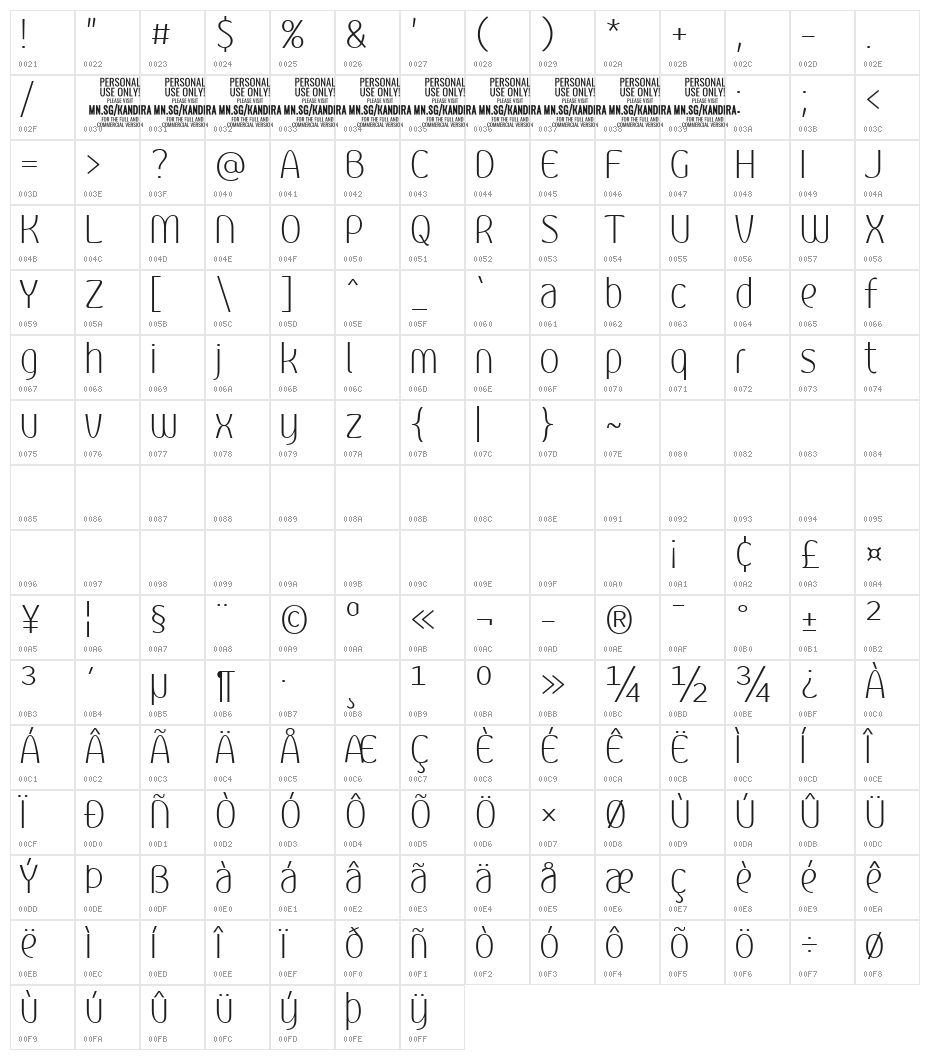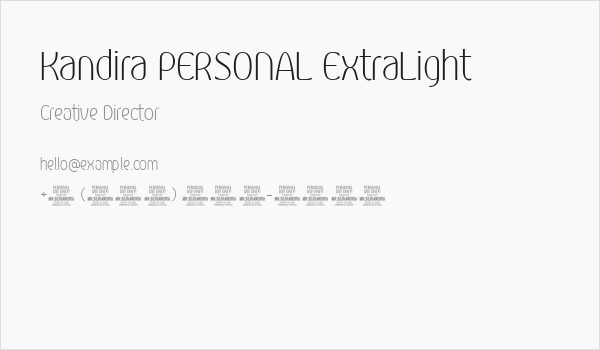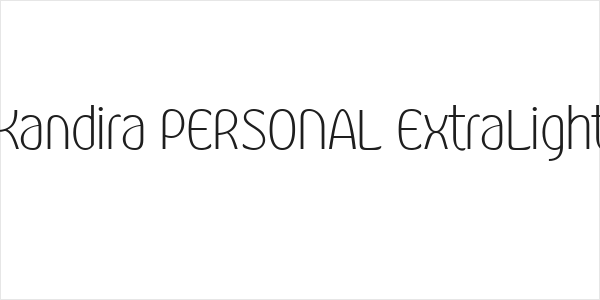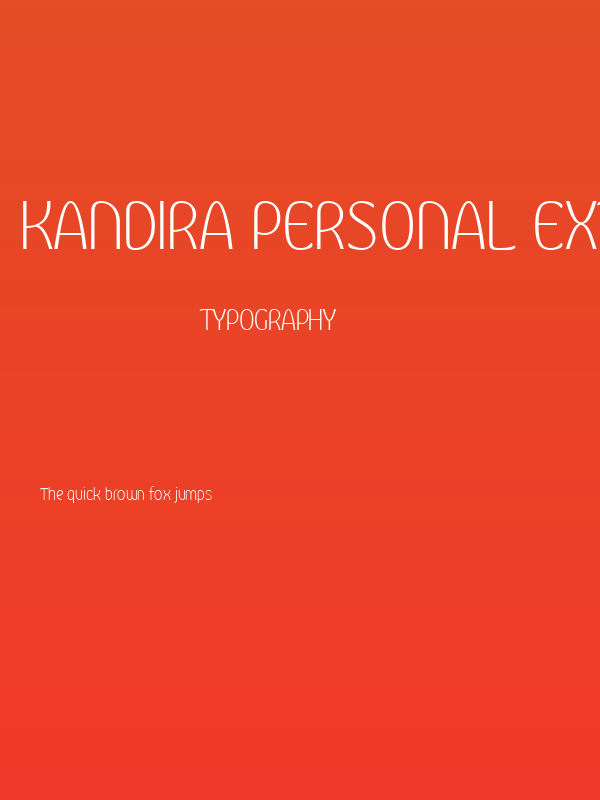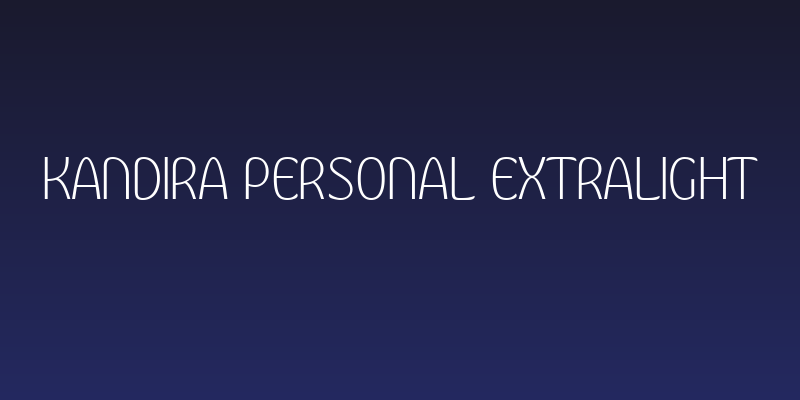
Kandira PERSONAL ExtraLight Font
Kandira PERSONAL ExtraLight Description
This font features a sleek and modern design with elongated, narrow characters that convey a sense of elegance and sophistication. The strokes are consistent and smooth, with a uniform thickness that gives the typeface a clean and minimalist appearance. The uppercase and lowercase letters maintain a harmonious balance, while the numerals and special characters are crafted with precision, enhancing the font's versatility. The overall aesthetic is contemporary, making it suitable for a variety of design applications.
| Proposed Projects | Ideal for branding, editorial design, digital interfaces, and modern advertising campaigns. |